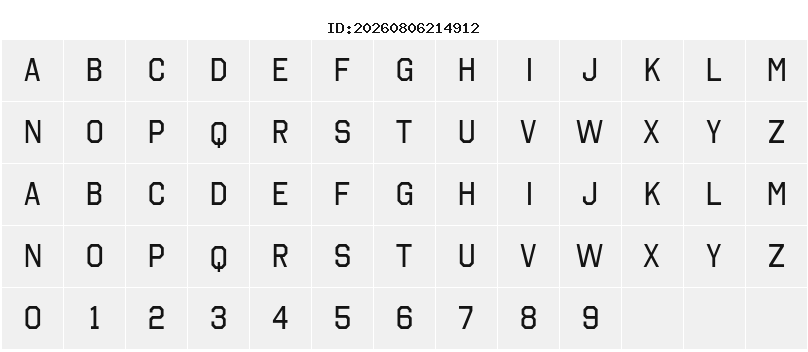
Octin College Rg Preview
• Font Name: Octin College Rg
• Designer: Ray Larabie
About Octin College Rg.ttf
Octin College Rg.ttf is a modern, elegant sans-serif font designed for ultimate readability and visual harmony. Perfect for branding, headlines, web design, and print materials.